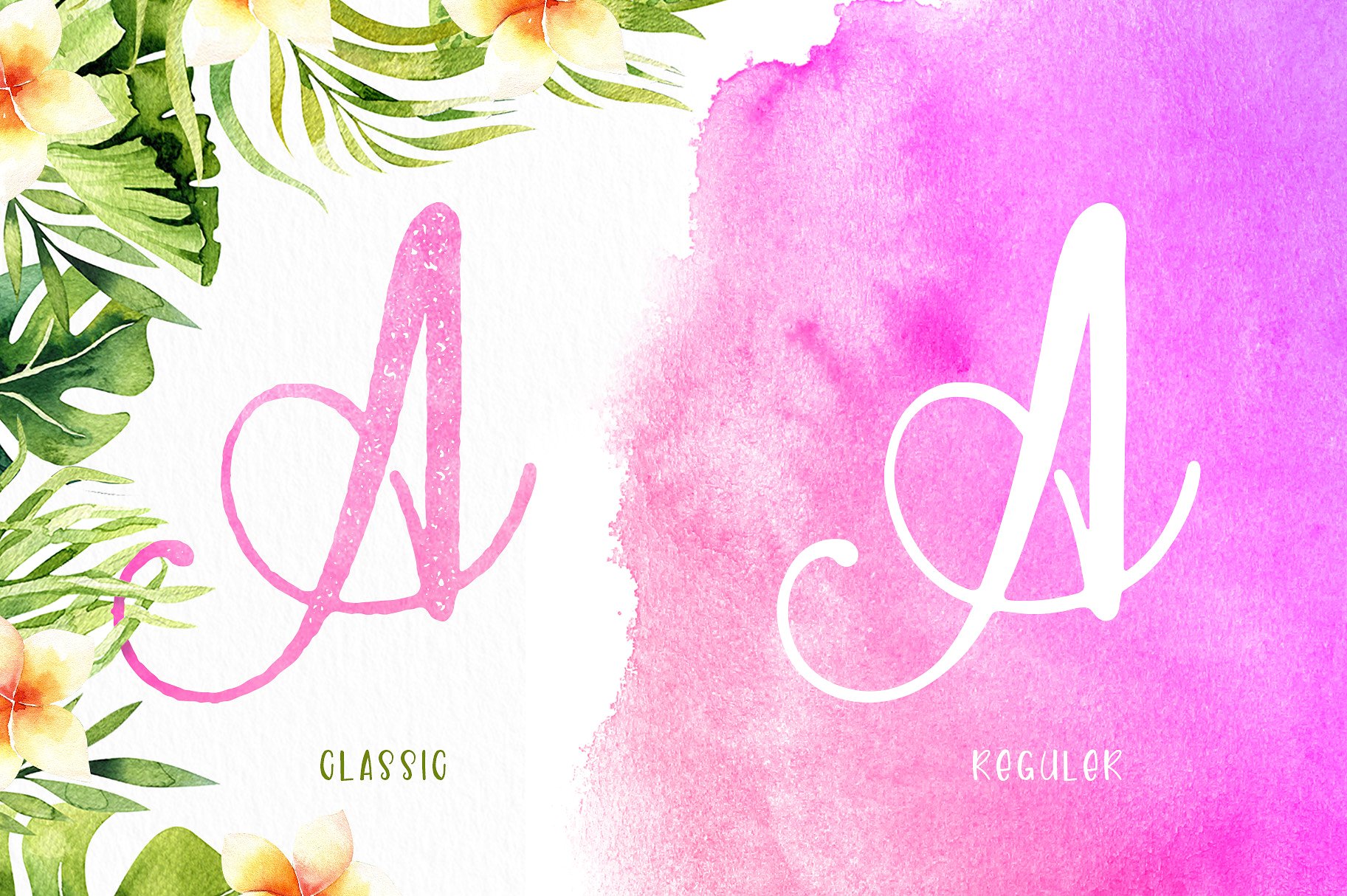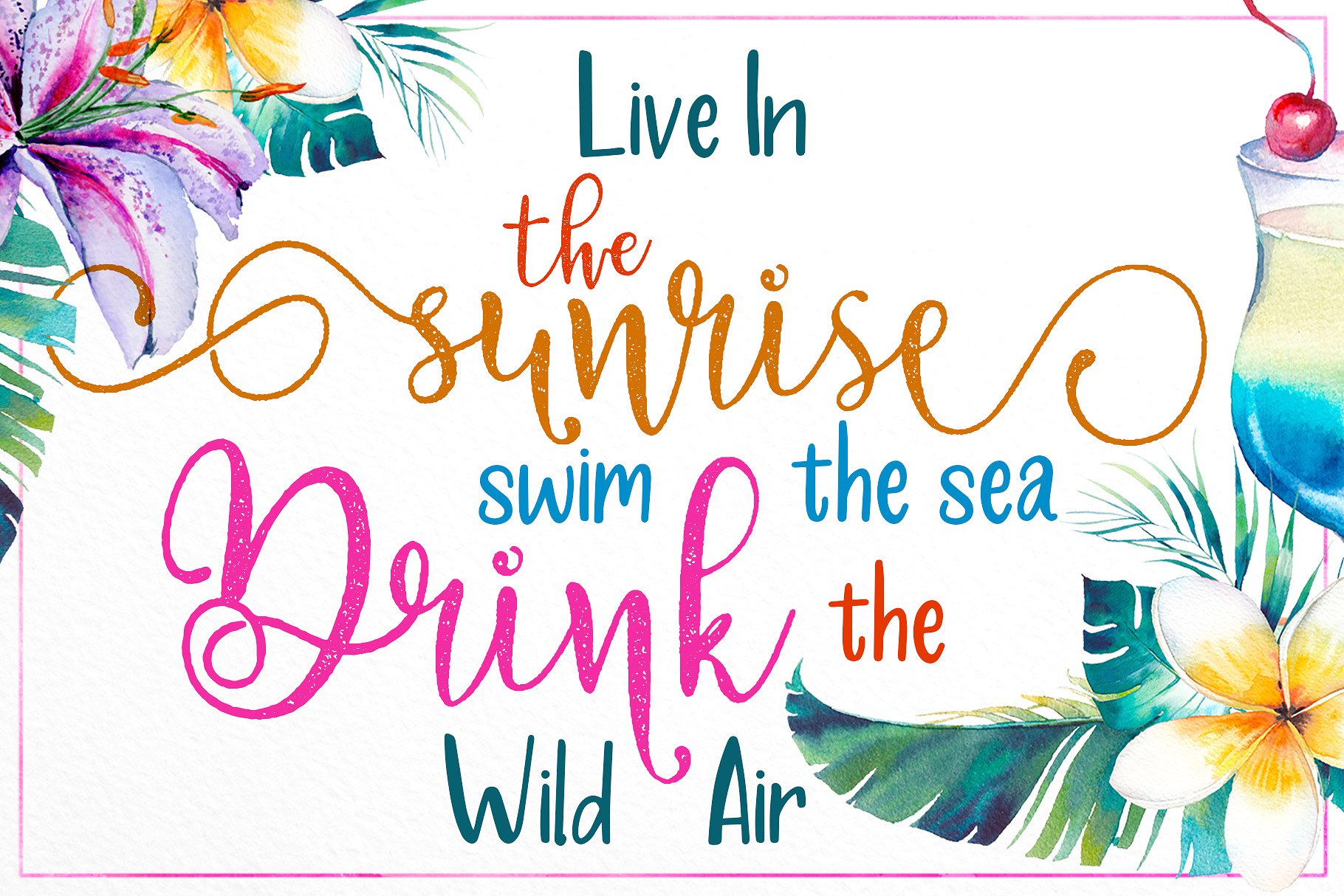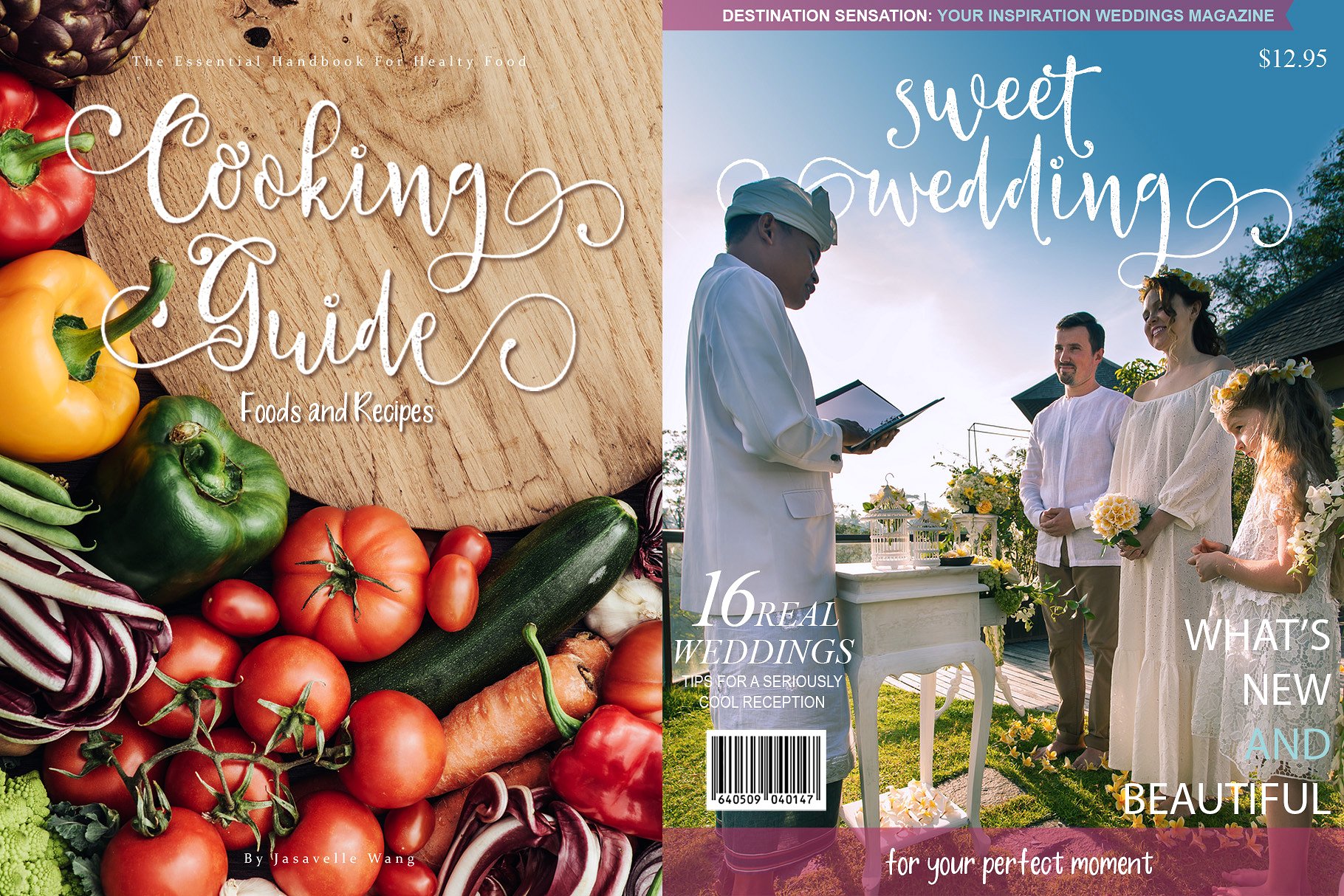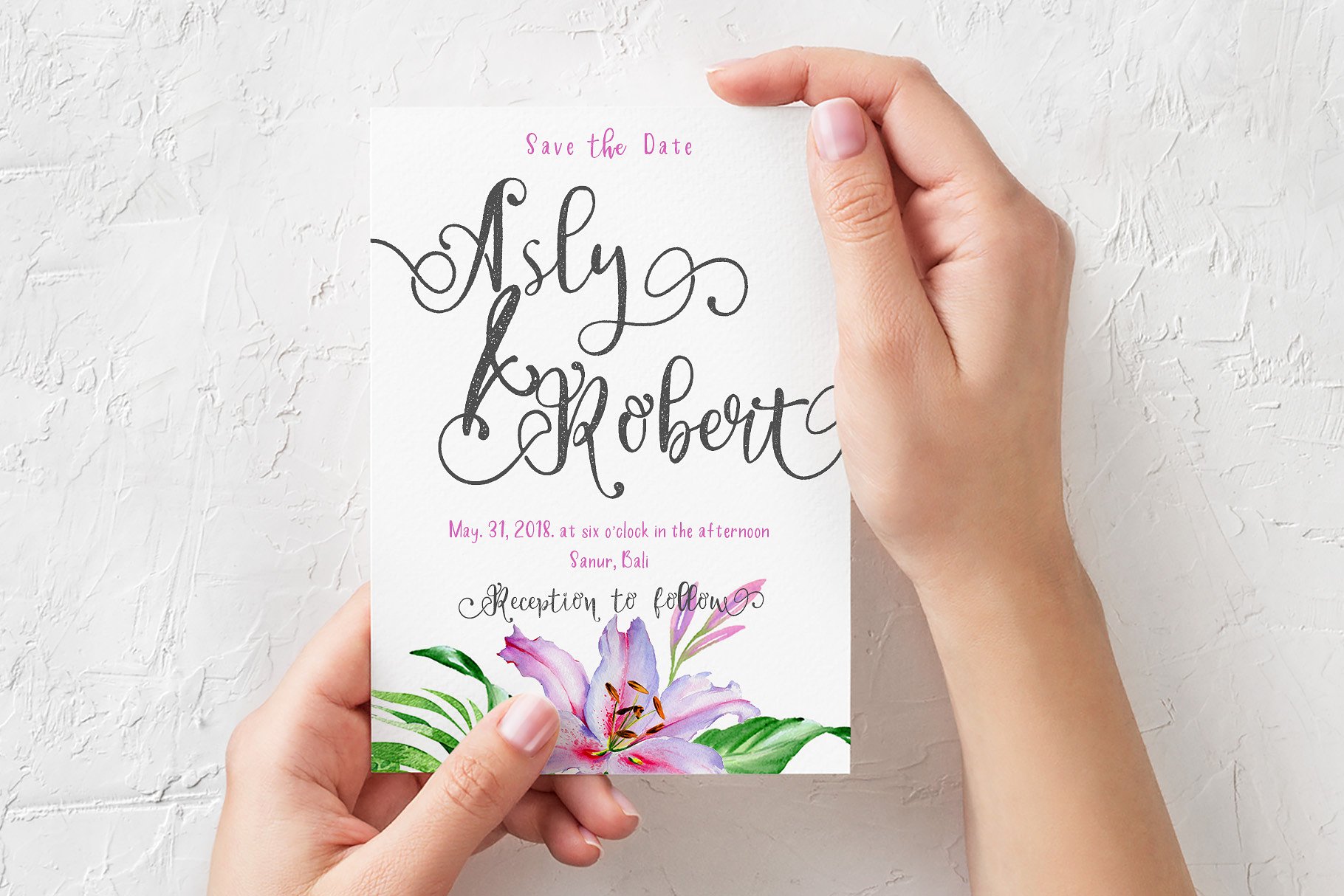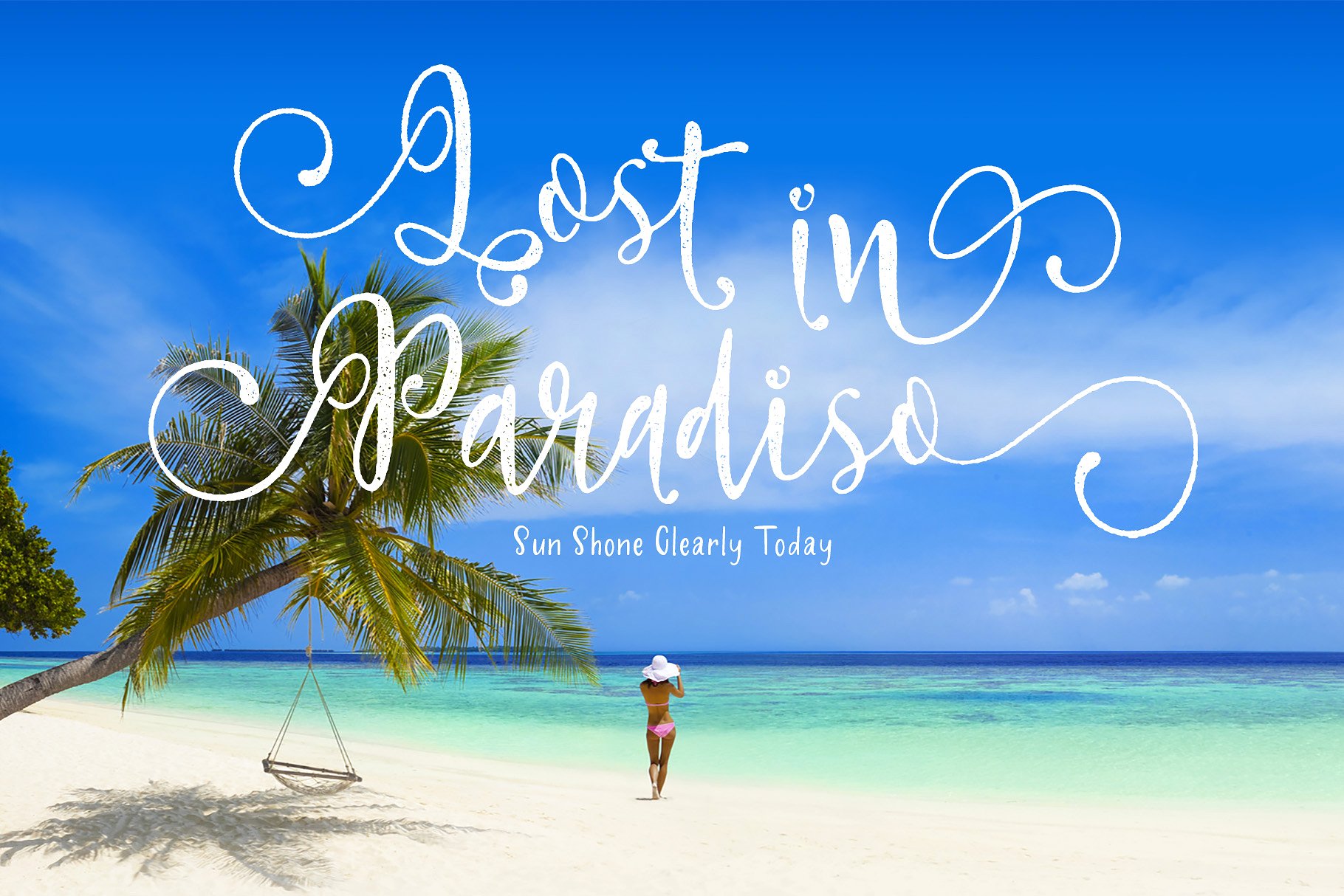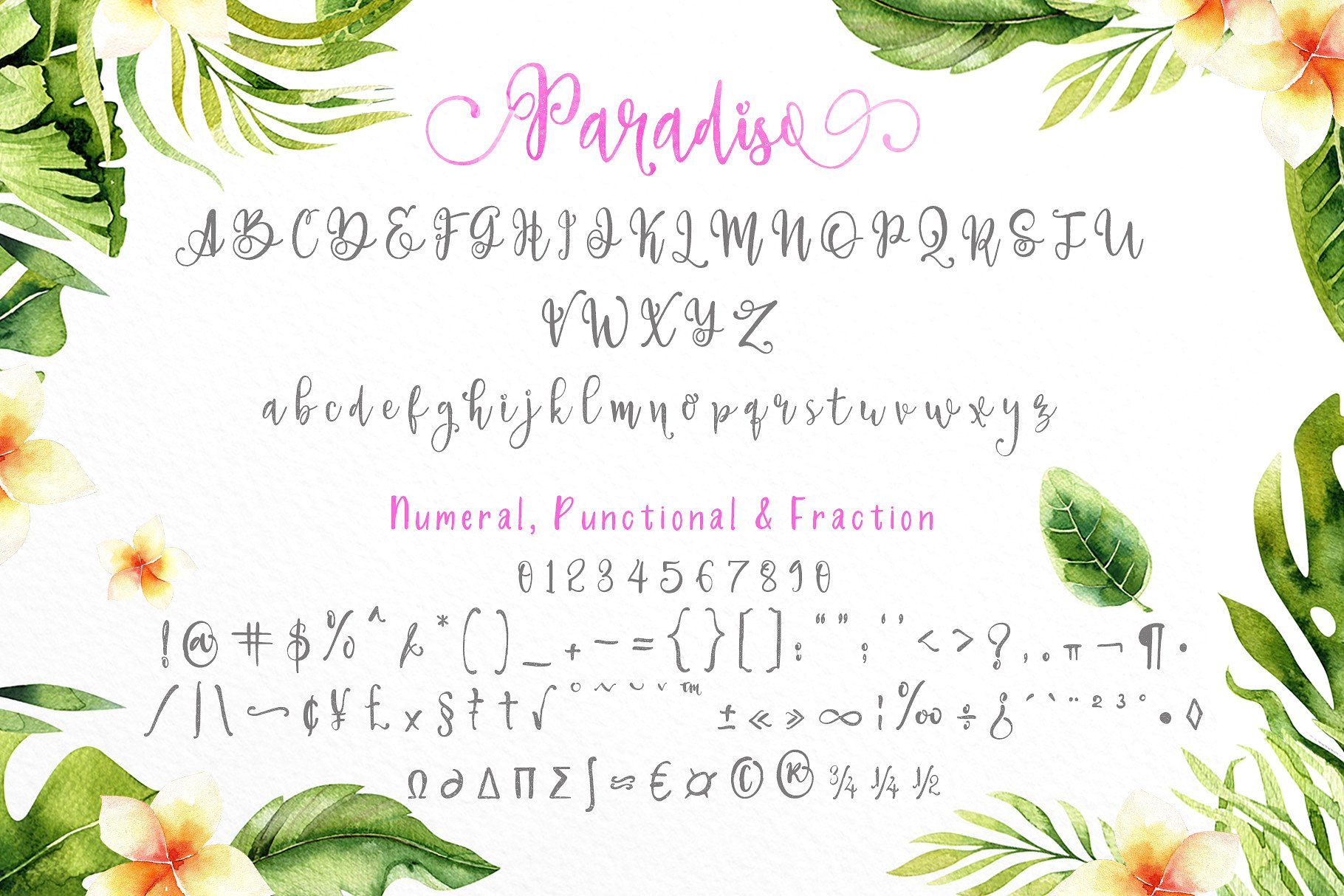
Introduction to Paradiso Duo Font
Paradiso duo consists of two complementary fonts, perfect for summery or floral designs.
Sunrise and Paradiso (both in regular and vintage) look phenomenal when paired or standalone .